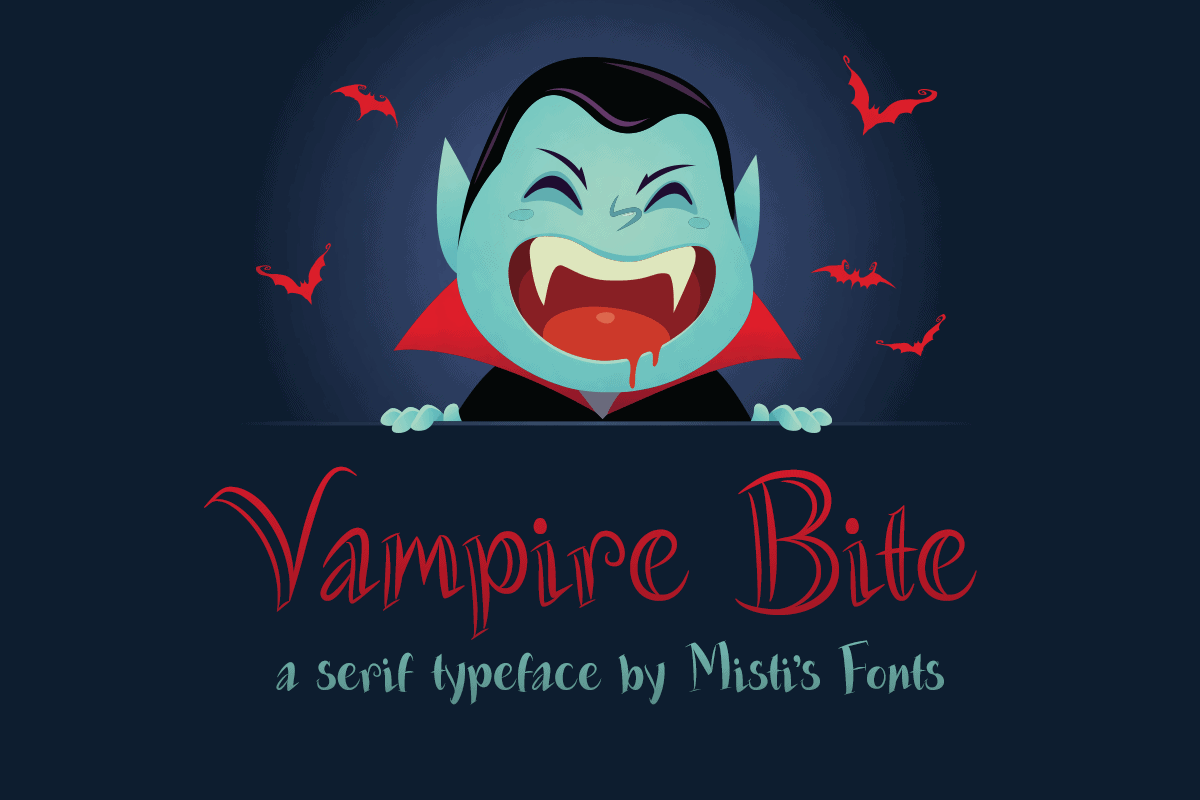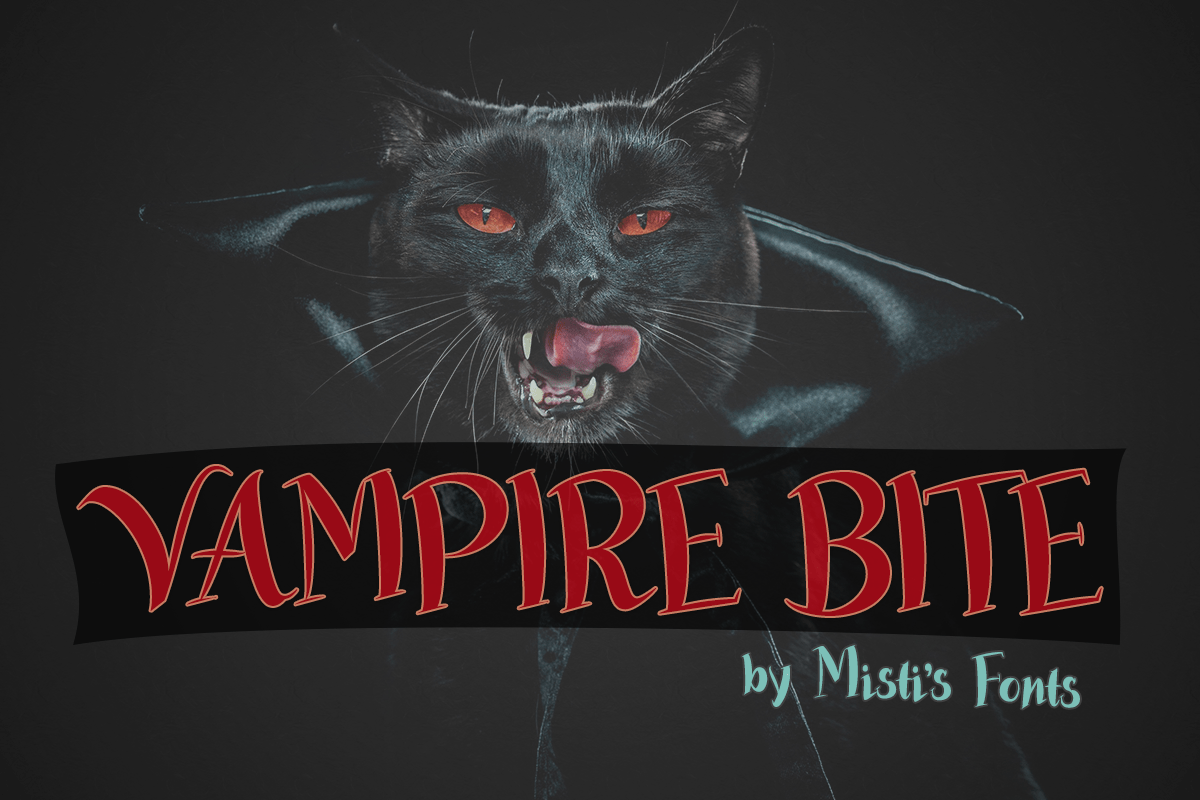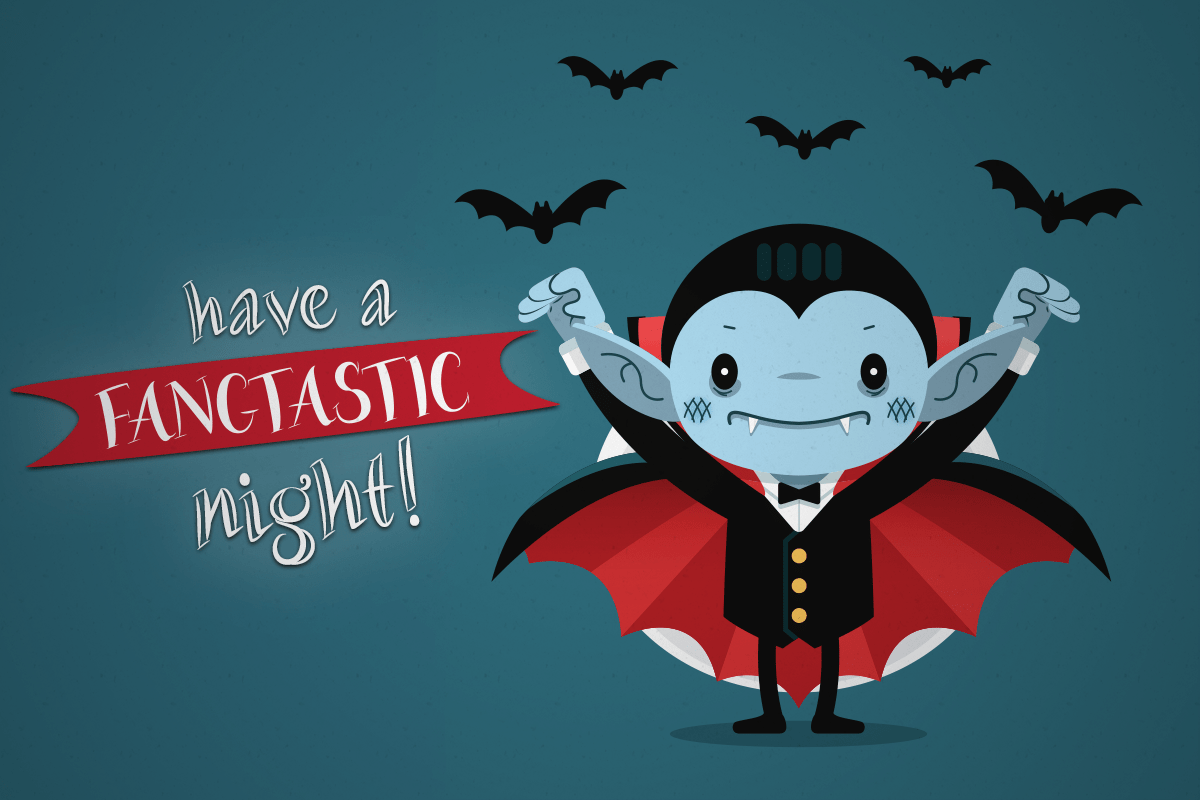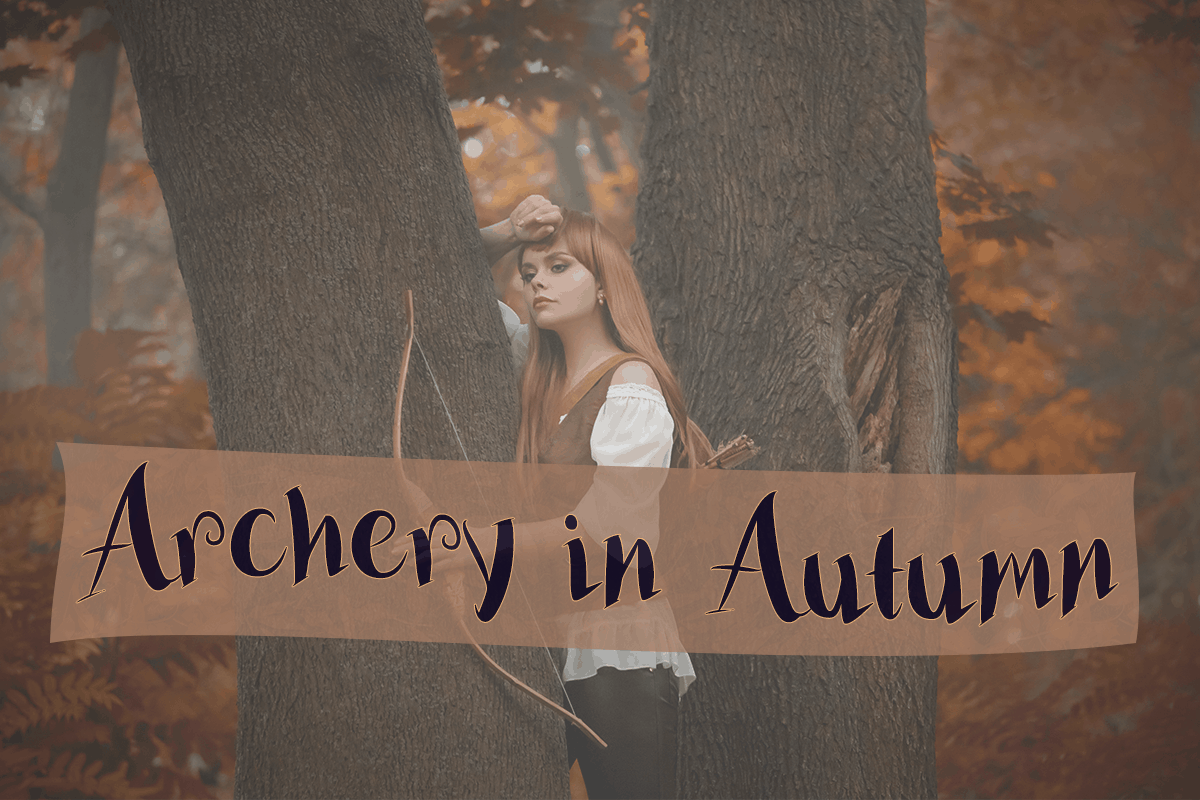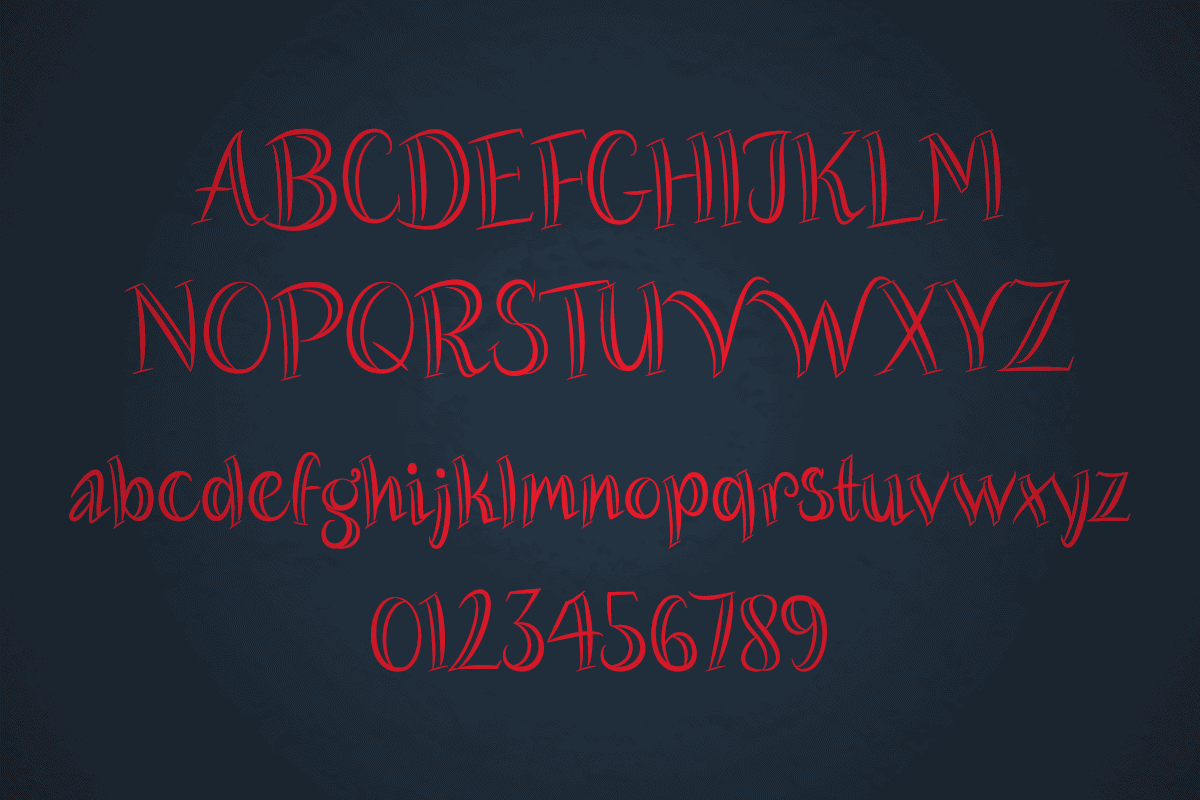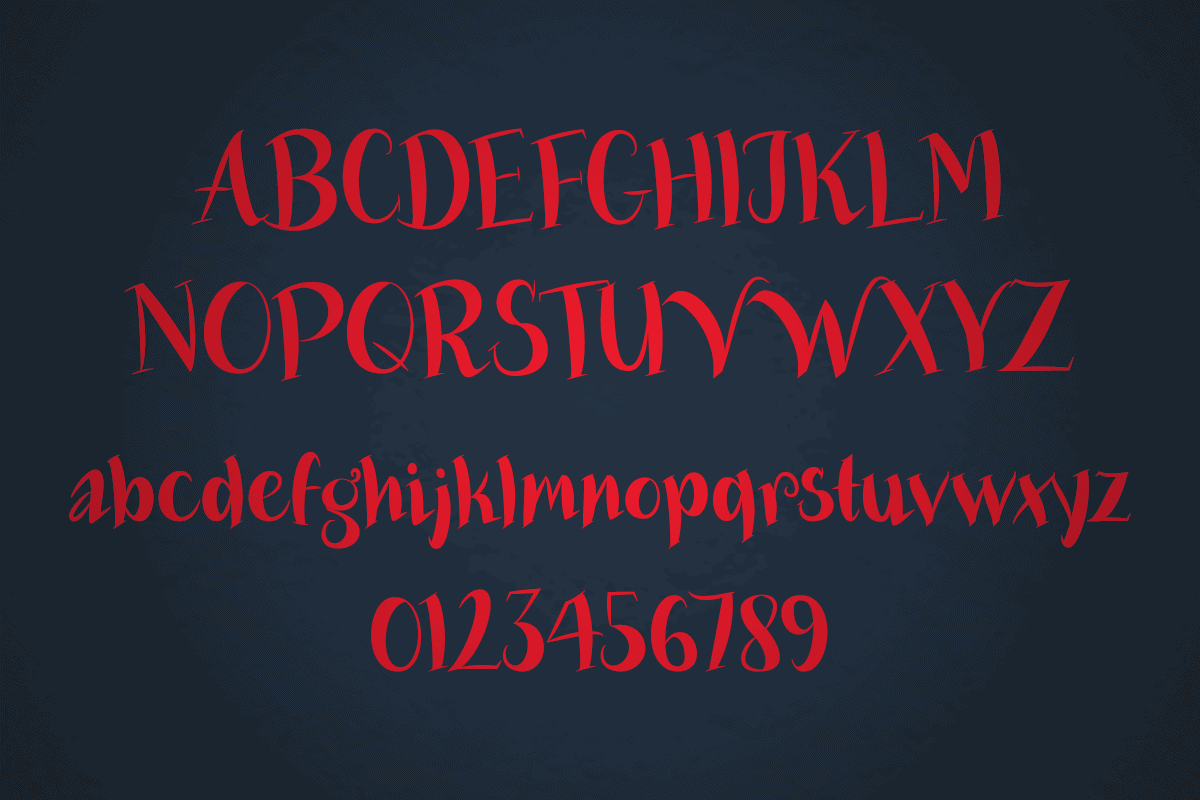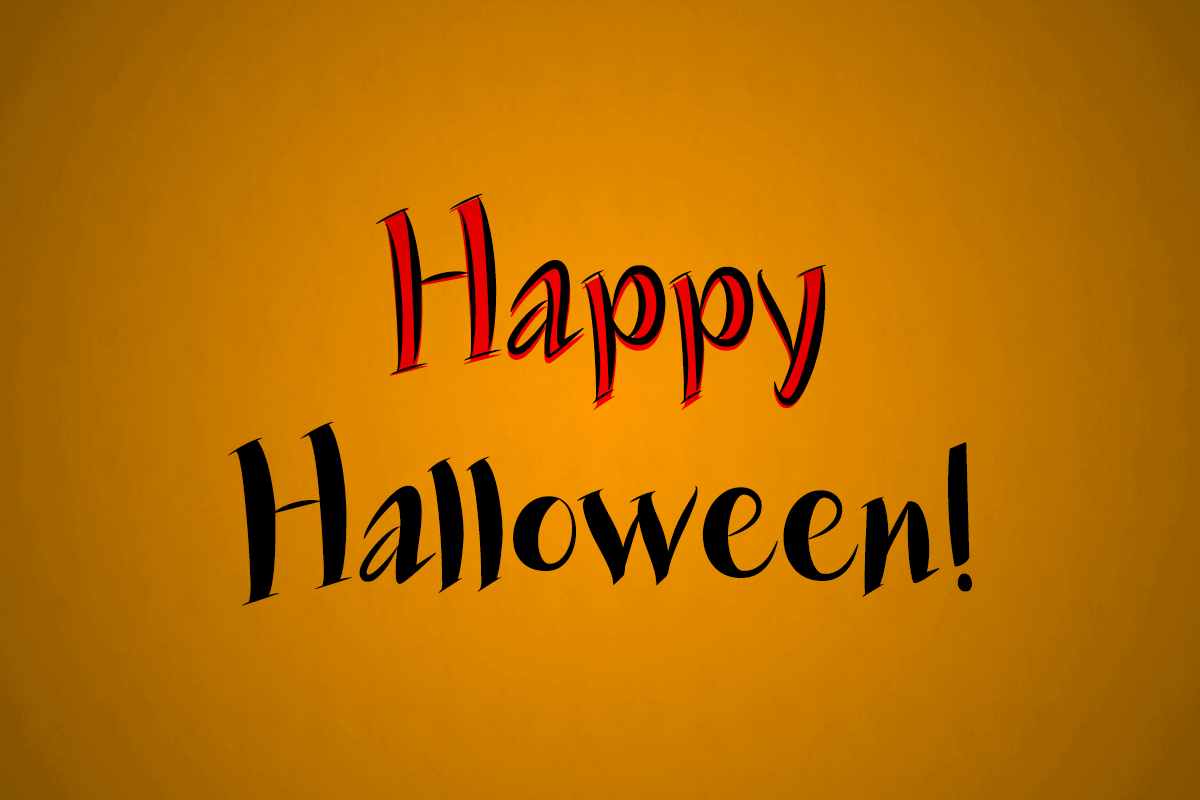
Vampire Bite
Vampire Bite is a playful display font with a spooky Halloween theme. Packed with personality, this typeface will help your designs stand out from the crowd.
Vampire Bite Solid
Vampire Bite Solid- Preview Image
Vampire Bite
Vampire Bite- Preview Image
Vampire Bite Character Map